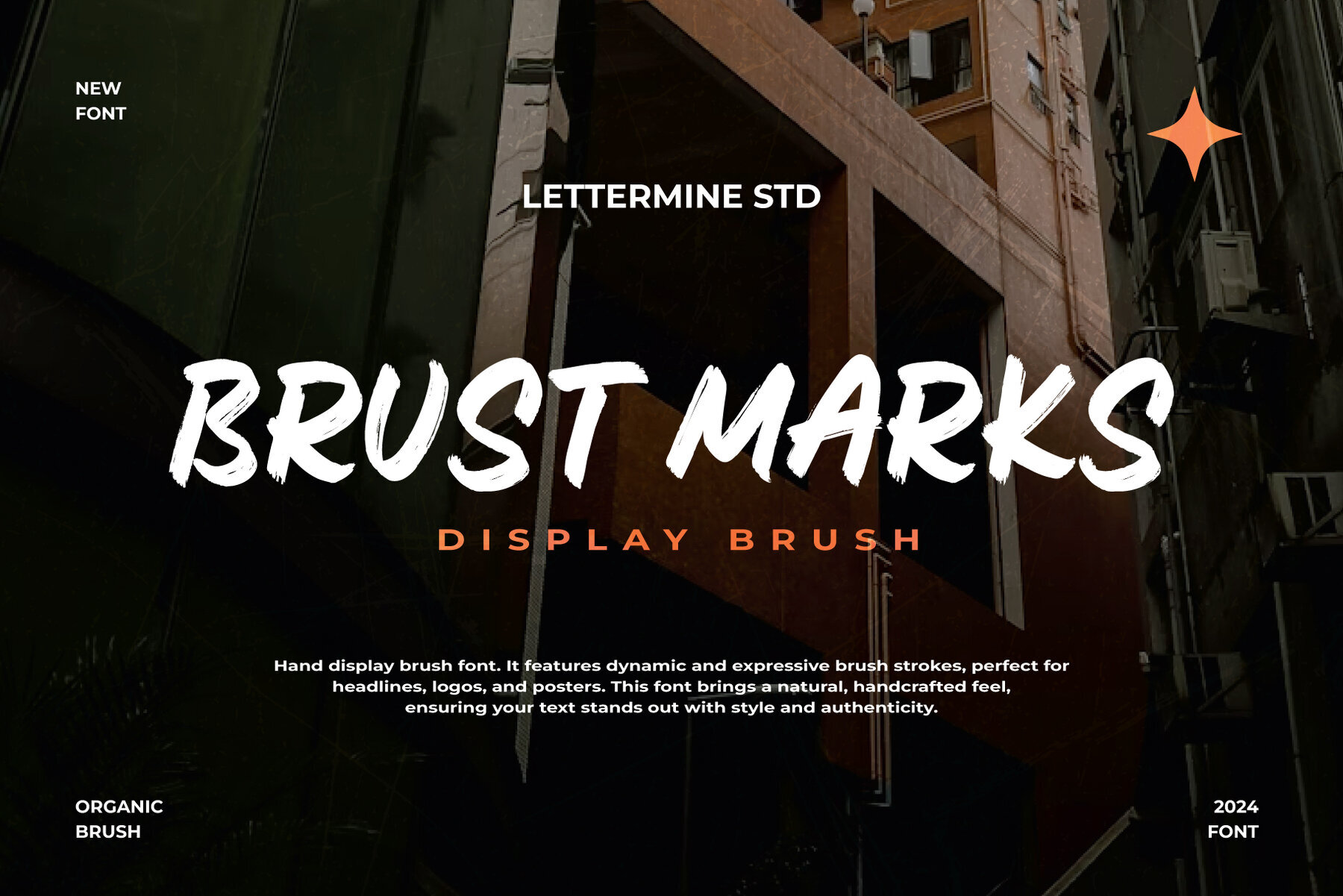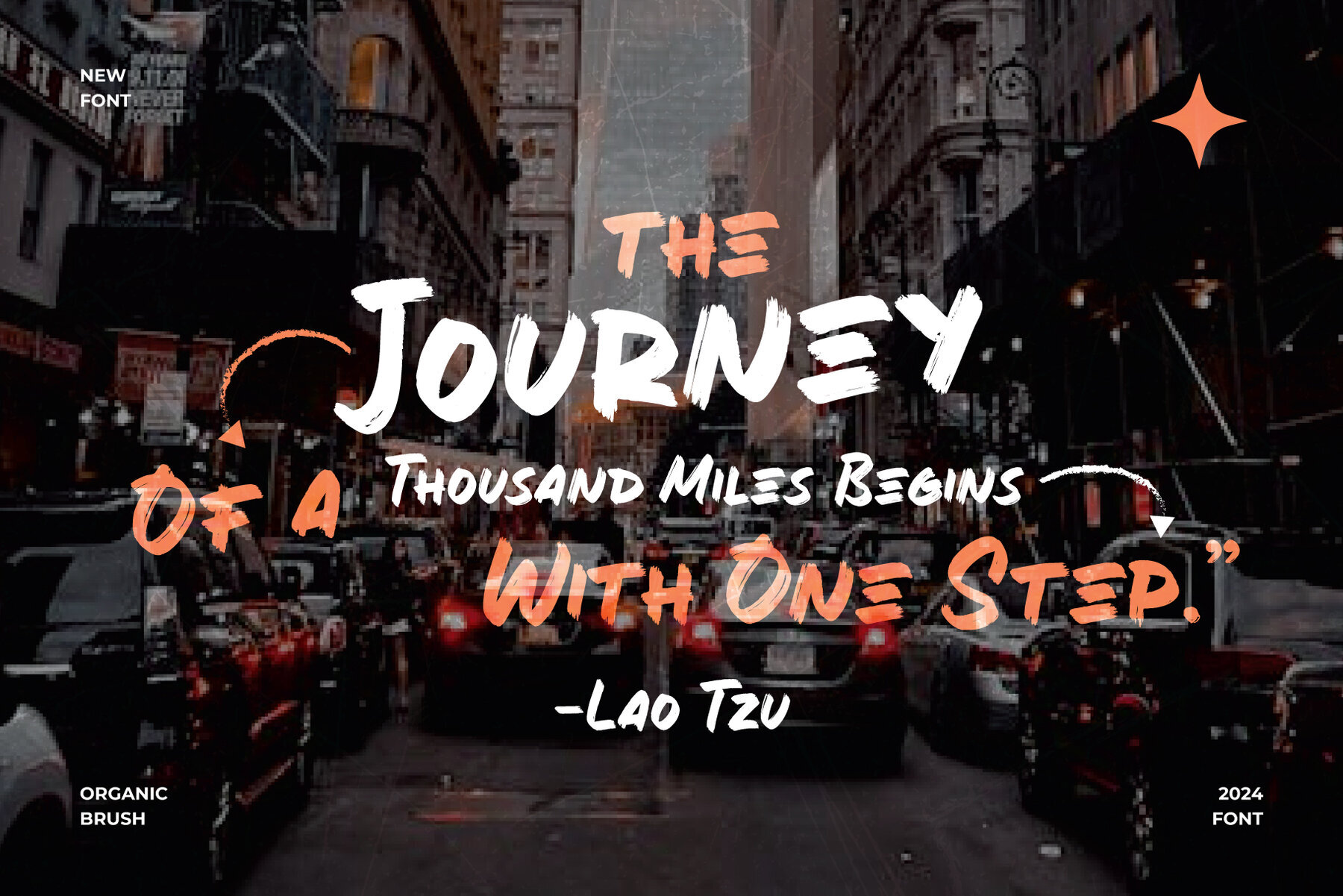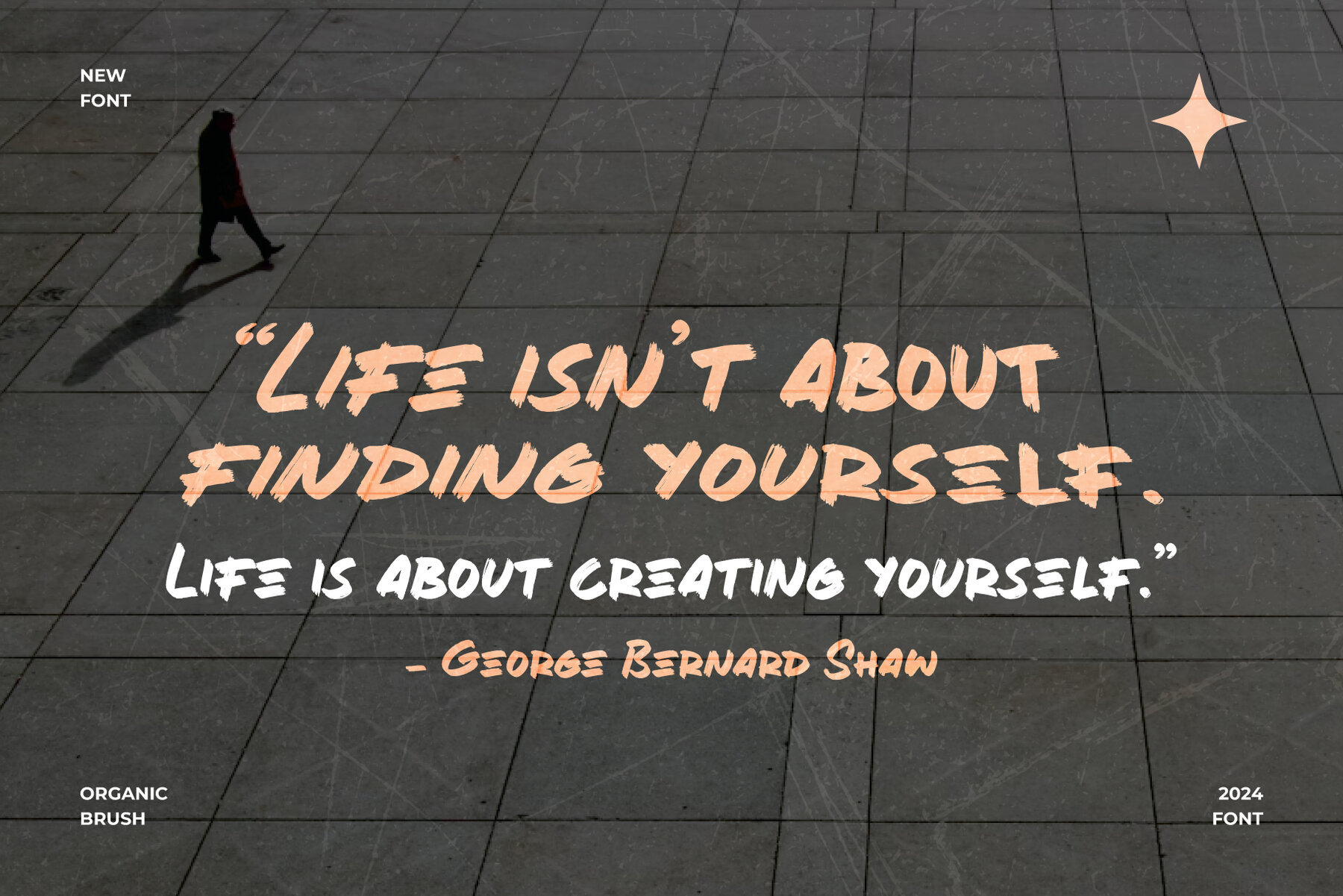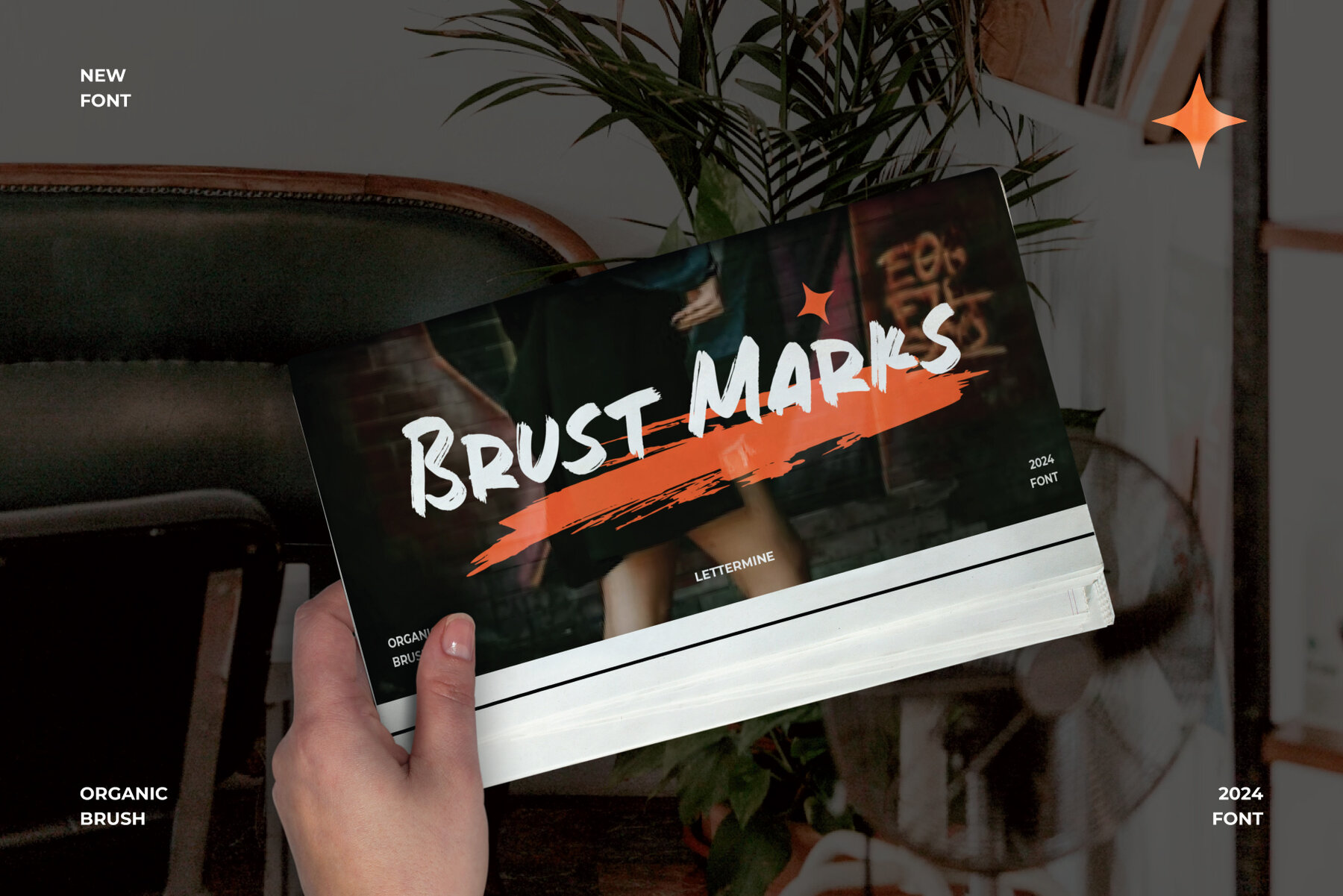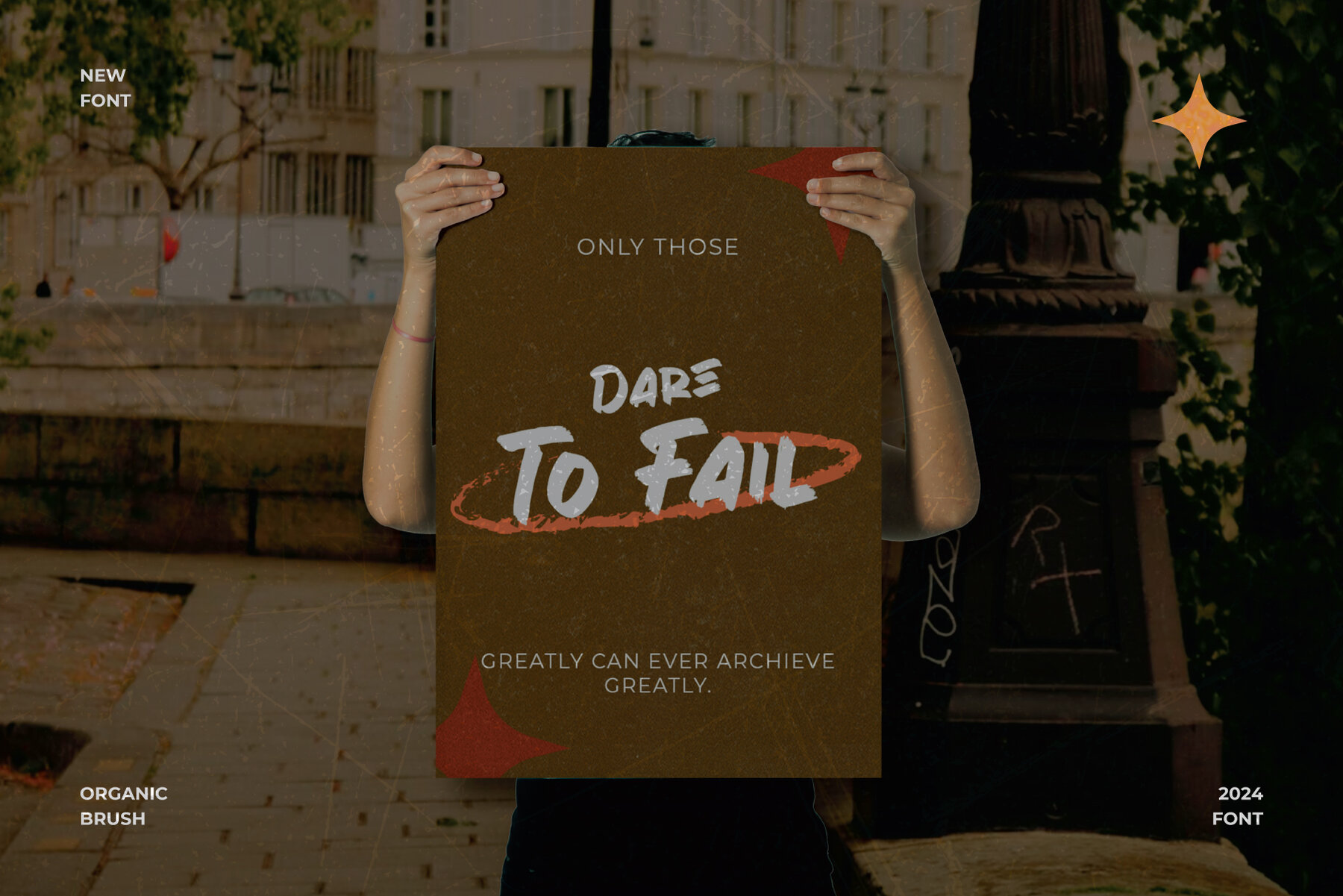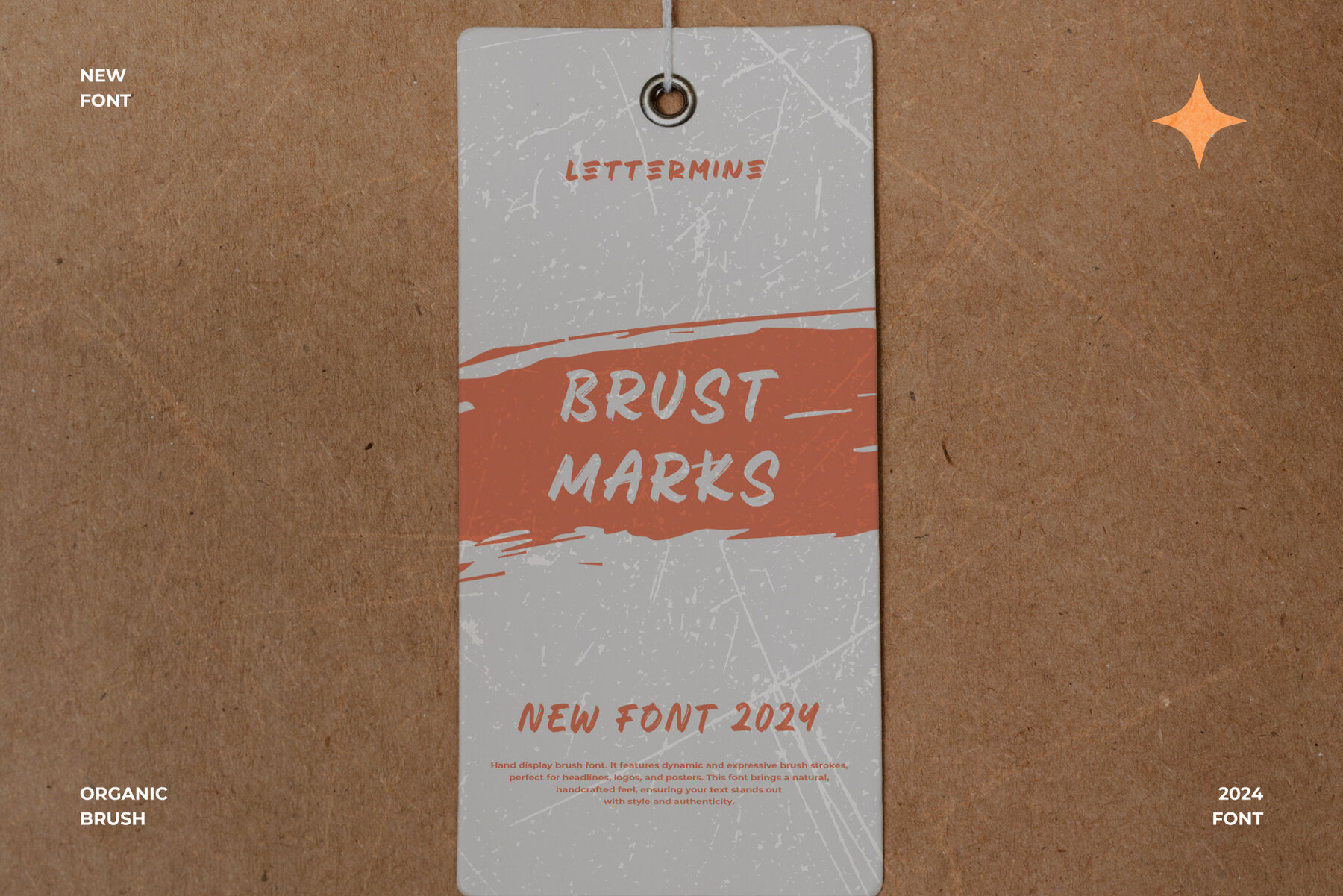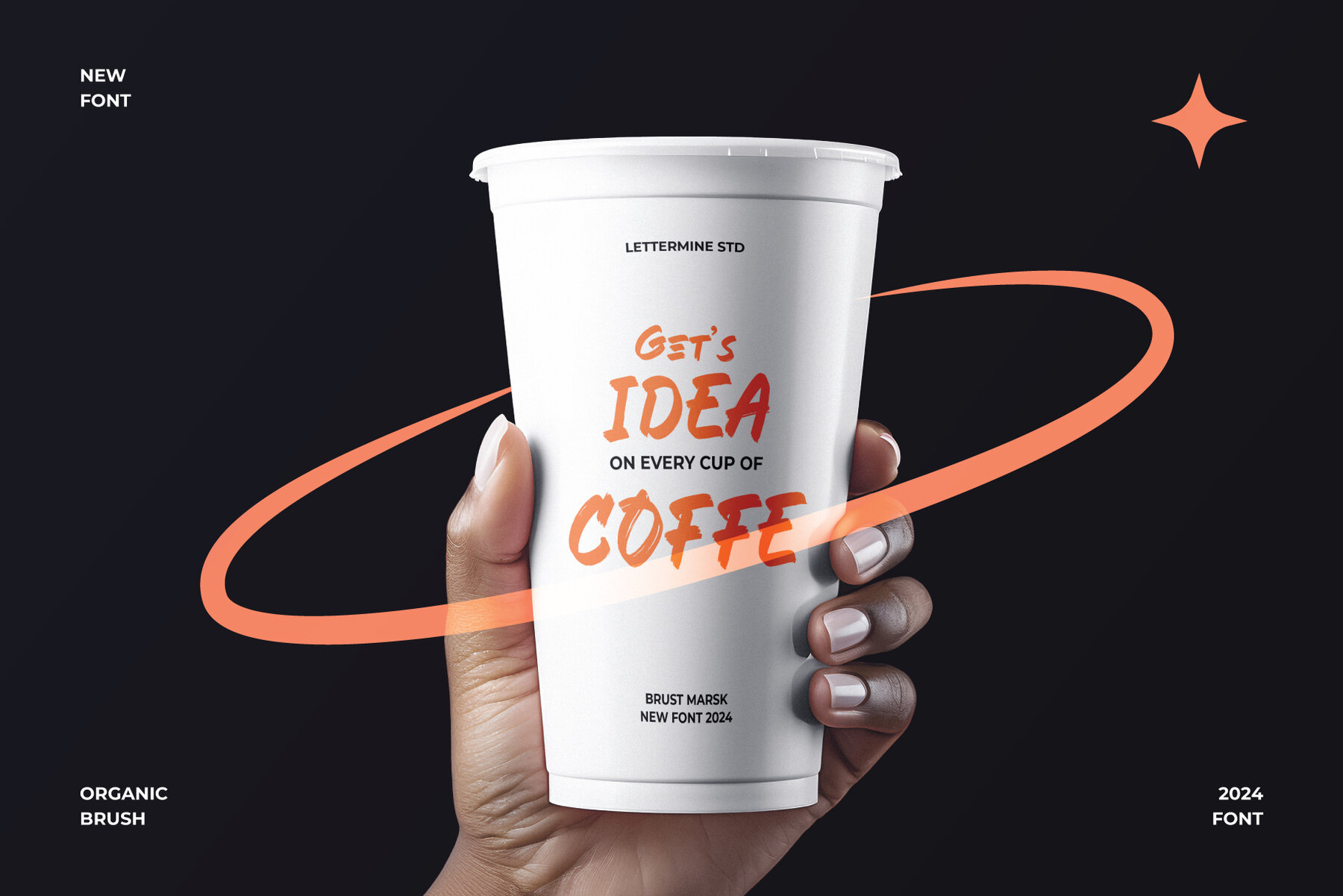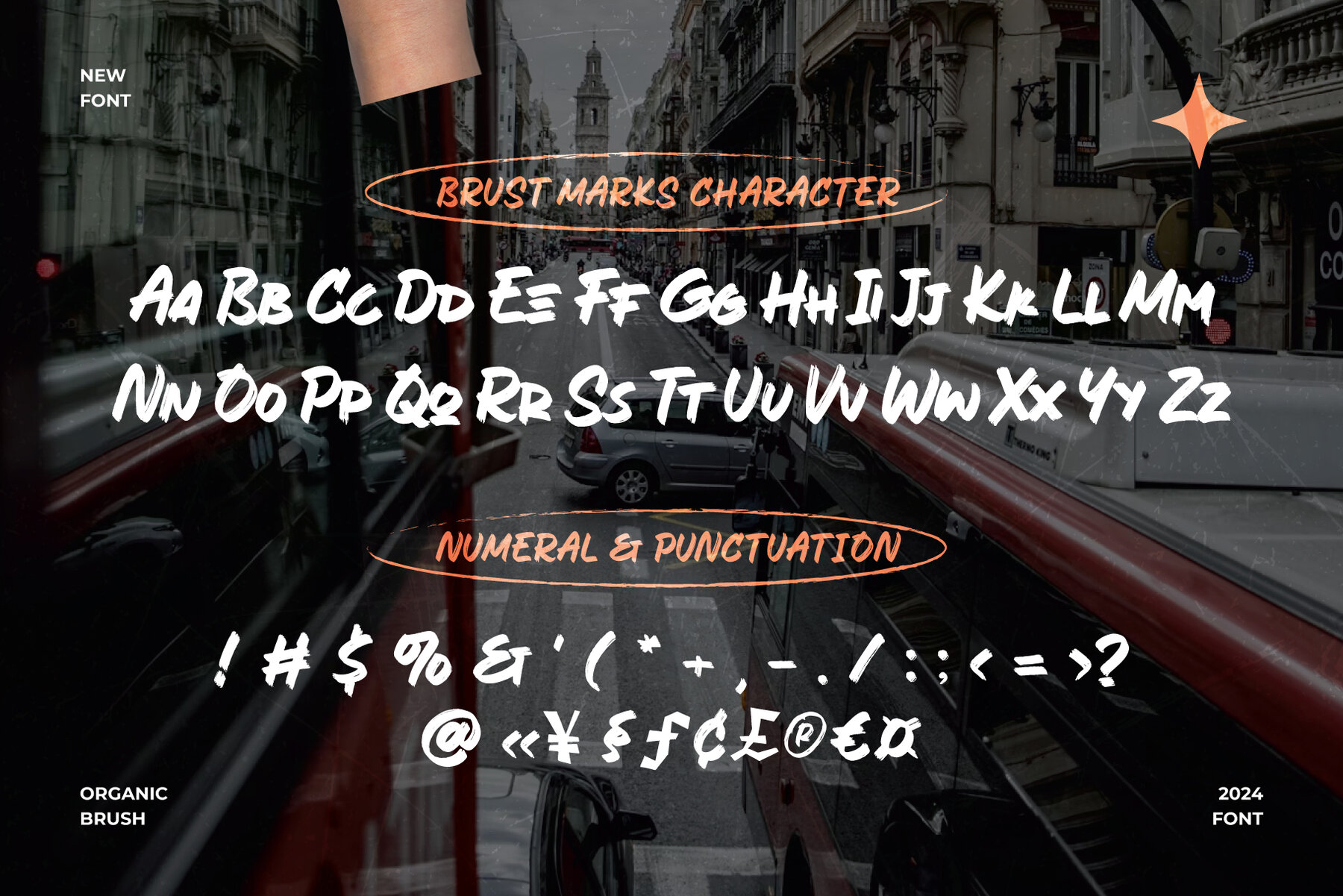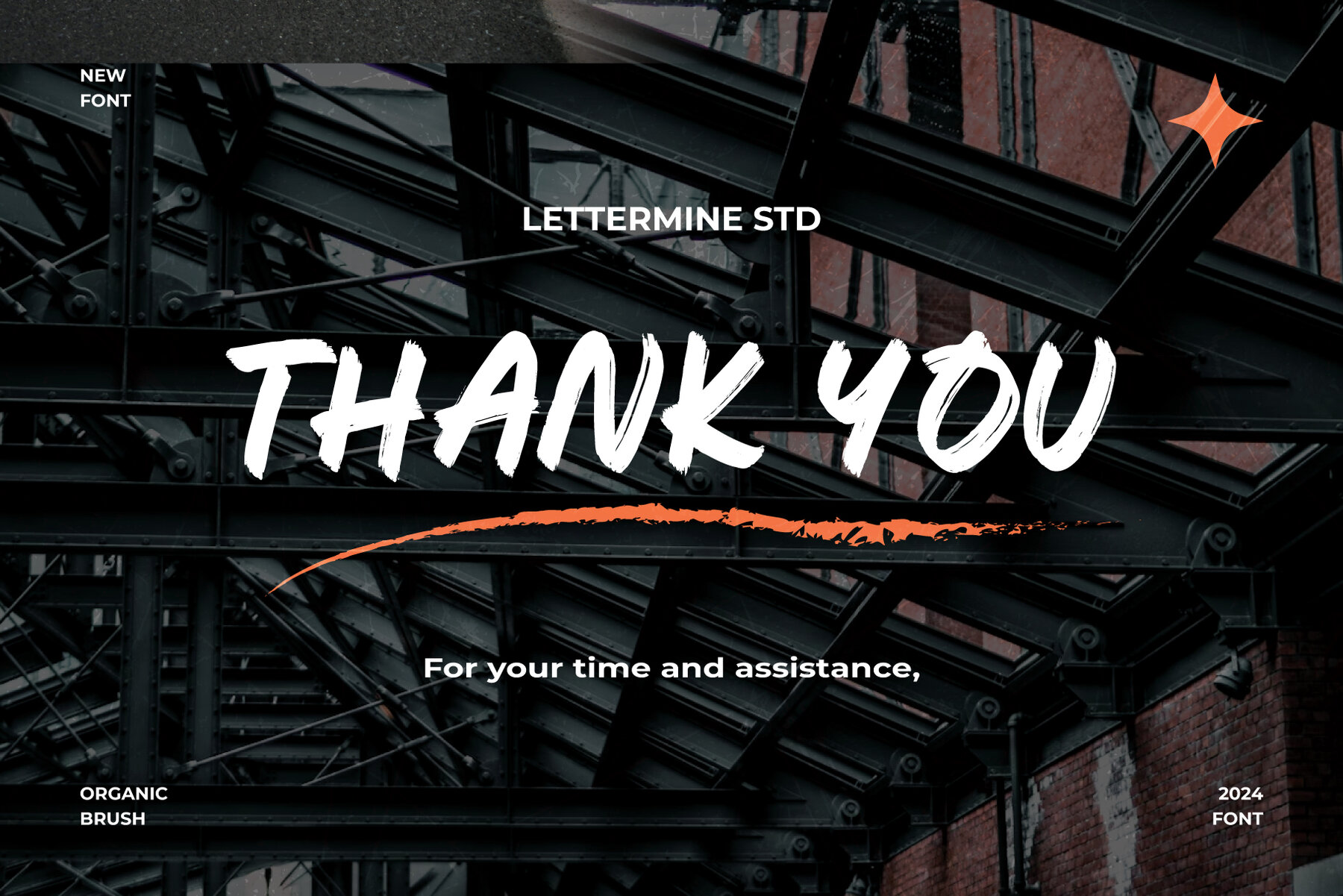
Brust Marks Font
Unleash your creativity with Brust Marks, a versatile brush font designed to add an artistic flair to your projects. This display brush font is perfect for bold headlines and subtle logos alike, providing a unique, handcrafted touch to your designs. Featuring both uppercase and lowercase letters, along with essential punctuation marks, Brust Marks is ideal for a variety of applications.
Whether you're crafting branding projects, social media graphics, posters, flyers, creative logos, or invitations and event materials, this font delivers the impact you need. Its dynamic strokes and detailed brushwork make Brust Marks a powerful tool for designers looking to create eye-catching and memorable visuals.